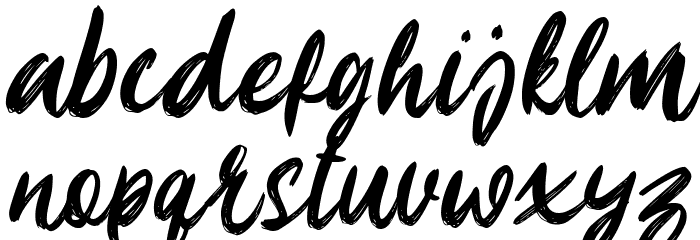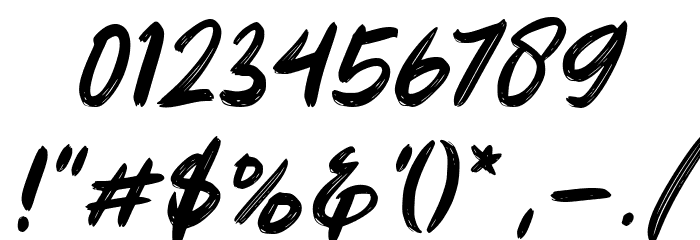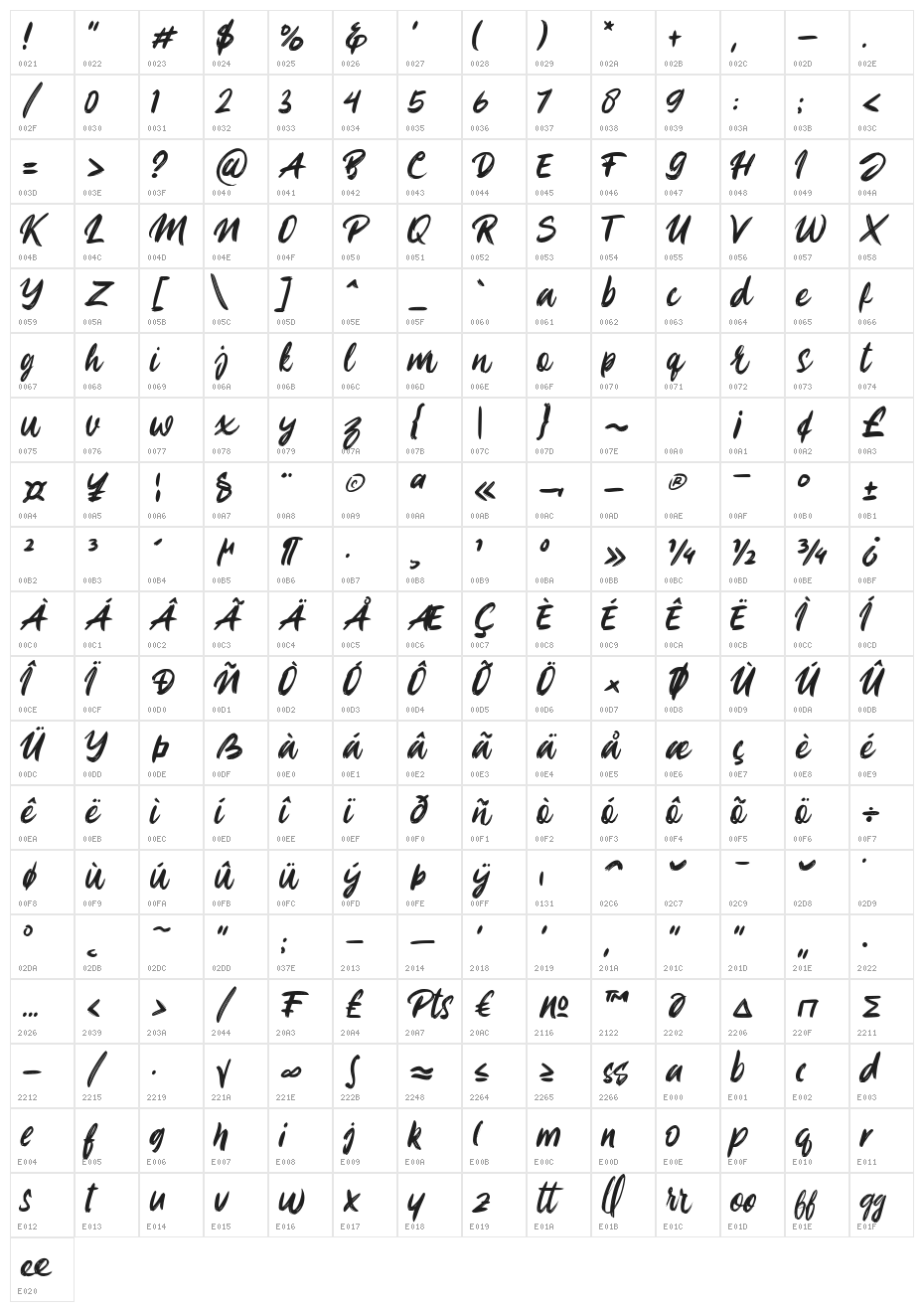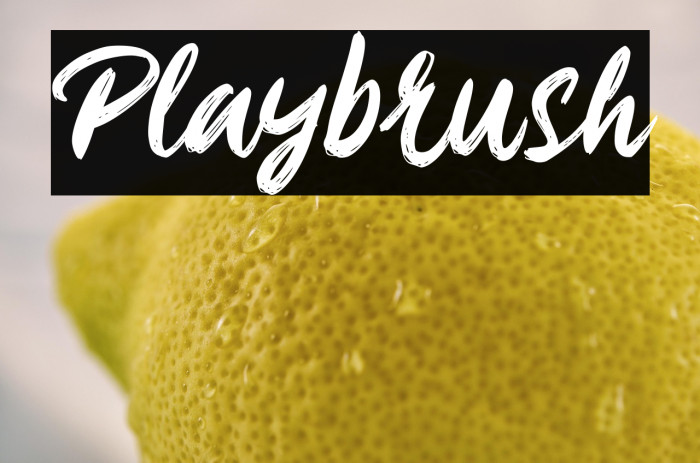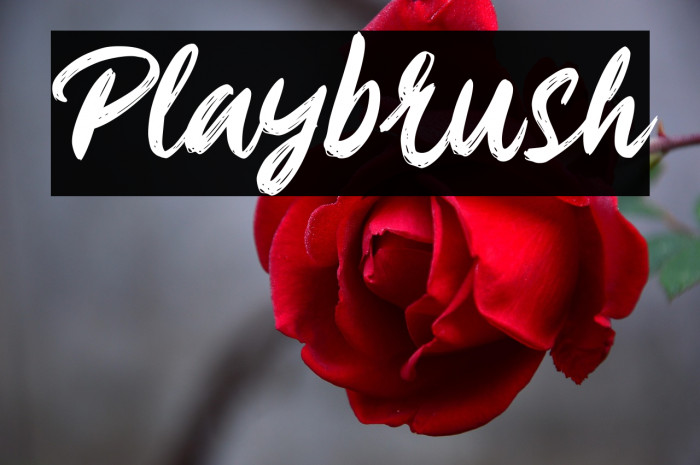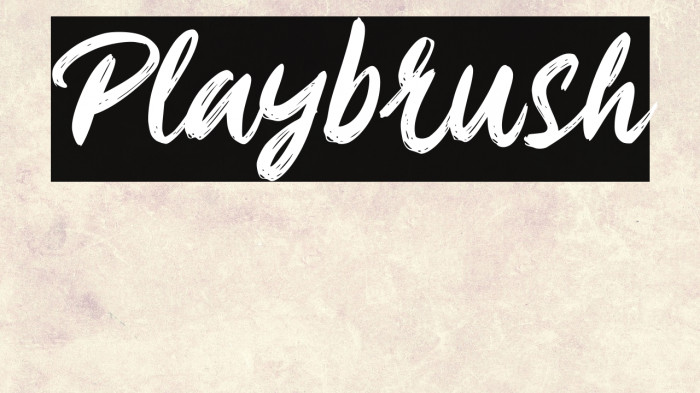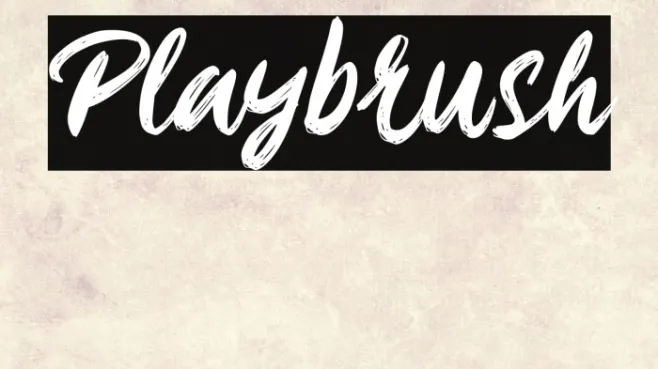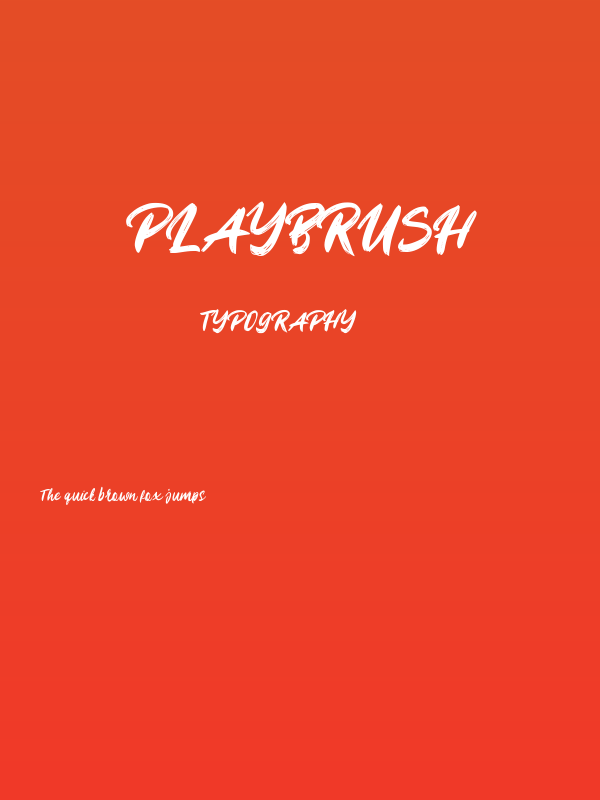
Playbrush Font
This font features a bold, expressive brush script style, characterized by its fluid and dynamic strokes. The letters are slightly slanted, giving a sense of motion and energy. The uppercase and lowercase letters maintain a consistent style, with thick and thin variations that add a lively texture. The numbers and special characters are equally expressive, maintaining the overall aesthetic. This font's hand-drawn appearance makes it ideal for projects that require a personal touch or artistic flair.
A bold, expressive brush script font with dynamic strokes.
- Proposed Projects: Ideal for branding, posters, invitations, and artistic projects that require a personal and energetic touch.